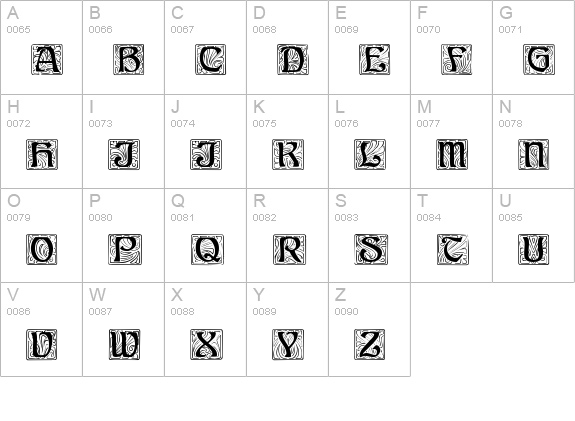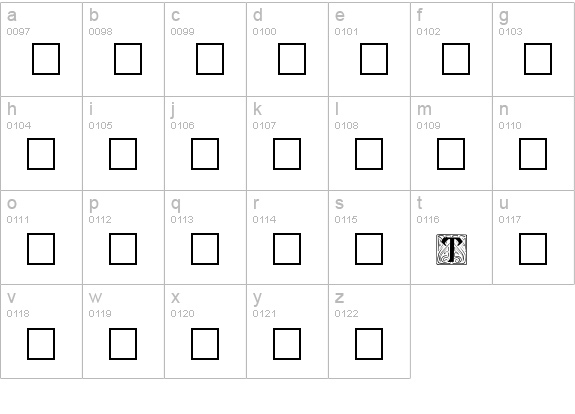
AnnStone.fog font is a visually stunning typeface that combines elegance with a touch of modernity. Its sleek and sophisticated design makes it perfect for a wide range of projects, from branding to editorial design. The unique letterforms and subtle details of AnnStone.fog font will surely make your text stand out and leave a lasting impression on your audience. What sets AnnStone.fog font apart is that it is not only stylish but also free to use. That's right, this high-quality font is freely available to download at FontsMarket.com, making it accessible to designers of all levels. Whether you're working on a personal project or a professional assignment, AnnStone.fog font is a versatile choice that will elevate your typography game. So why wait? Download AnnStone.fog font today and start creating stunning designs with ease.